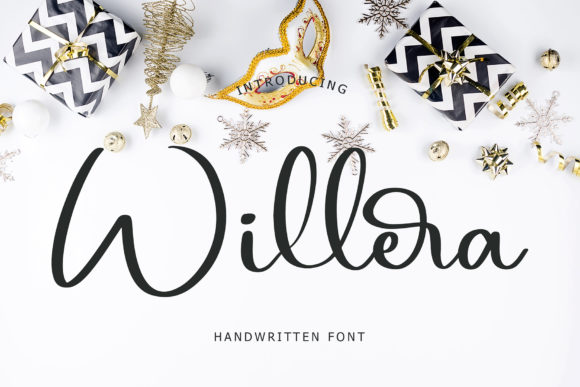
Introducing Willera Font, the script font that will transform your designs with elegance, luxury, and trendsetting style. Crafted by formatikastd, Willera is not just a font; it's an artistic expression that adds a touch of sophistication to any project.
With its meticulous hand-drawn characters, Willera has the innate ability to captivate audiences and convey messages with timeless charm. Its smooth, flowing lines intertwine to create visual harmony that speaks volumes, making it the perfect choice for branding projects, logos, wedding invitations, social media posts, advertisements, and product packaging.
Step into a world of creative possibilities with Willera. It's the perfect font to make your words dance off the page, leaving an unforgettable impression on your audience. Whether you're designing a logo that exudes timeless elegance or creating social media content that demands attention, Willera will elevate your designs with its inherent beauty and captivating style.
So, unleash your creativity and embrace the allure of Willera Font. Let its enchanting characters weave their magic into your designs, captivating your audience with a touch of elegance and timeless sophistication. Download Willera today and elevate your designs to new heights of artistic expression.